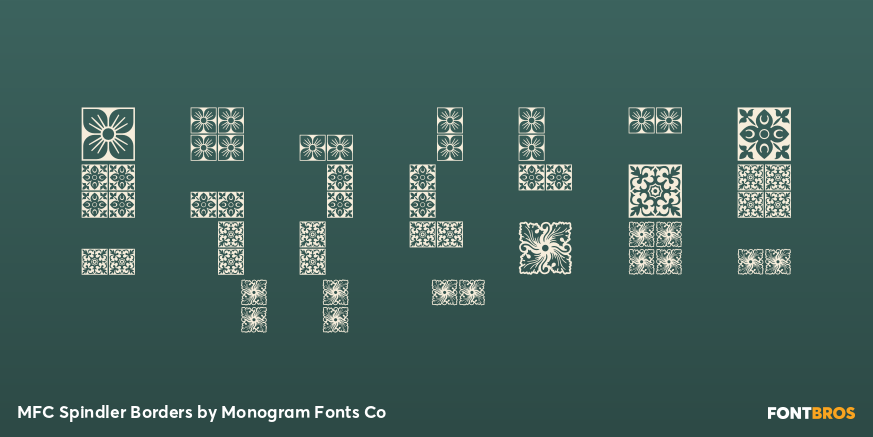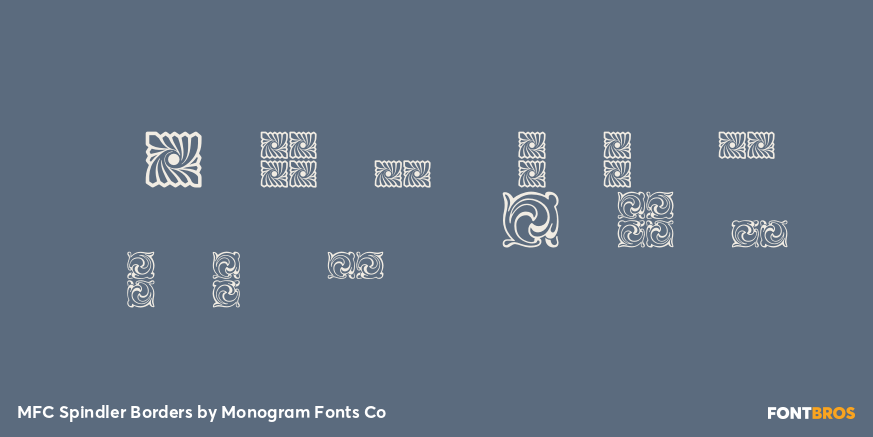
MFC Spindler Borders
Font Family by Monogram Fonts Co
The inspiration source for MFC Spindler Borders is a collection of border treatments revived from the ?Catalog 25 TYPE FACES? by Barnhart Brothers & Spindler. The border designs were recreated from two different border sets, ?Classic Art Borders? and ?Classic Black & White Borders?. This collection of borders represents a structured repetition of elements in various ways to create elegant patterns and backgrounds.